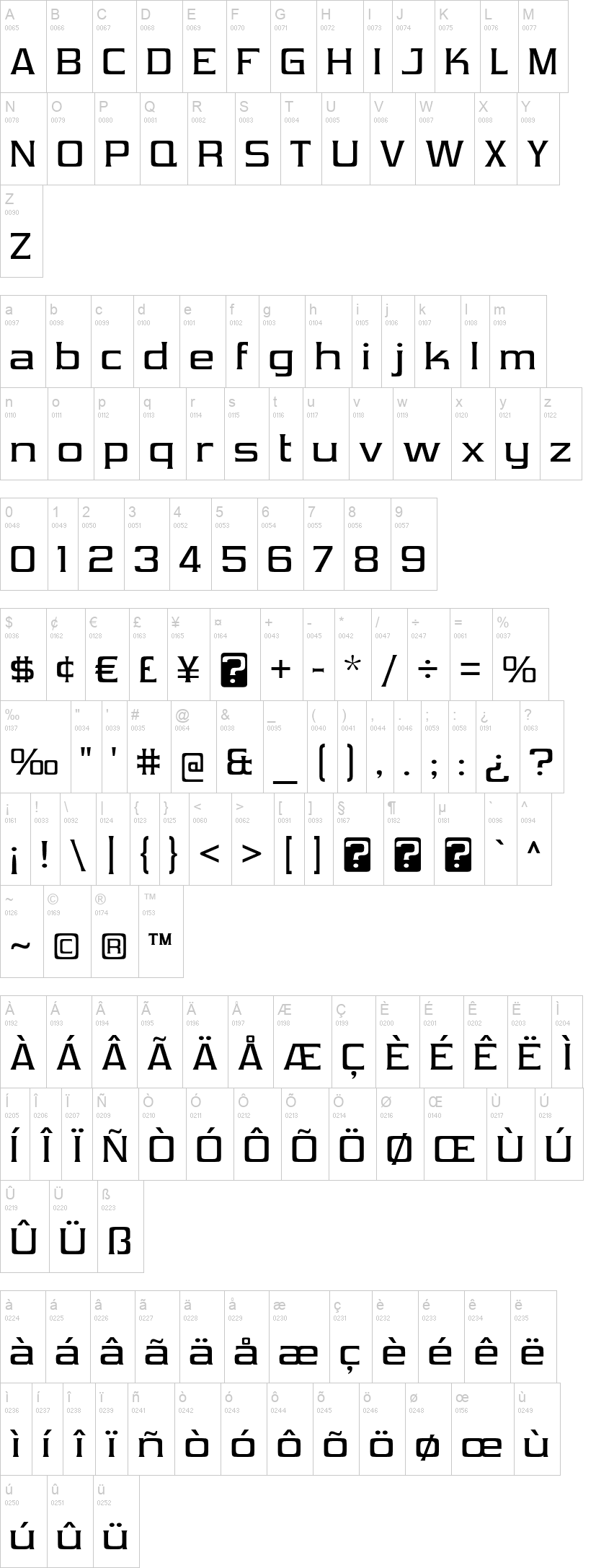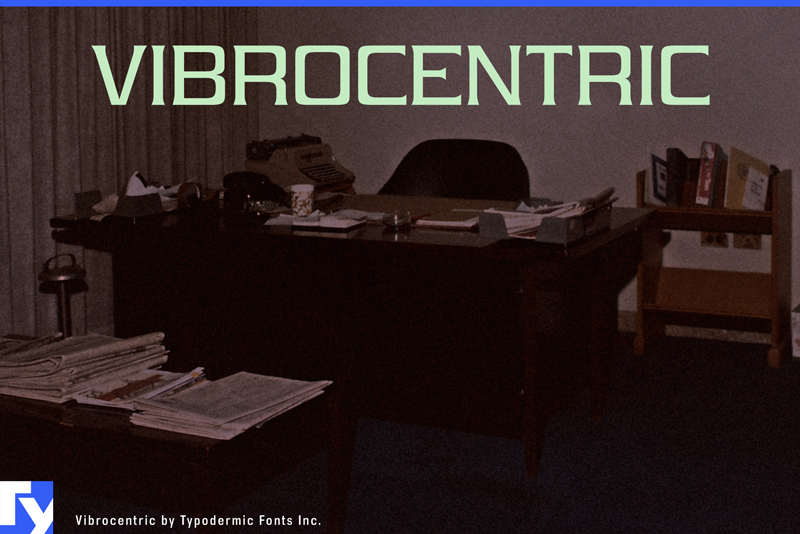
Vibrocentric Rg It.otfVibrocentric Bd.otfVibrocentric Bd It.otfNote of the authorVibrocentric is a squarish flared serif display typeface. Allow this 1960s classic coolness to infuse your message with a distinct industrial elegance. Vibrocentric comes in Regular, Italic, Bold, and Bold-Italic variants. Most Latin-based European writing systems are supported, including the following languages. Afaan Oromo, Afar, Afrikaans, Albanian, Alsatian, Aromanian, Aymara, Bashkir (Latin), Basque, Belarusian (Latin), Bemba, Bikol, Bosnian, Breton, Cape Verdean, Creole, Catalan, Cebuano, Chamorro, Chavacano, Chichewa, Crimean Tatar (Latin), Croatian, Czech, Danish, Dawan, Dholuo, Dutch, English, Estonian, Faroese, Fijian, Filipino, Finnish, French, Frisian, Friulian, Gagauz (Latin), Galician, Ganda, Genoese, German, Greenlandic, Guadeloupean Creole, Haitian Creole, Hawaiian, Hiligaynon, Hungarian, Icelandic, Ilocano, Indonesian, Irish, Italian, Jamaican, Kaqchikel, Karakalpak (Latin), Kashubian, Kikongo, Kinyarwanda, Kirundi, Kurdish (Latin), Latvian, Lithuanian, Lombard, Low Saxon, Luxembourgish, Maasai, Makhuwa, Malay, Maltese, Māori, Moldovan, Montenegrin, Ndebele, Neapolitan, Norwegian, Novial, Occitan, Ossetian (Latin), Papiamento, Piedmontese, Polish, Portuguese, Quechua, Rarotongan, Romanian, Romansh, Sami, Sango, Saramaccan, Sardinian, Scottish Gaelic, Serbian (Latin), Shona, Sicilian, Silesian, Slovak, Slovenian, Somali, Sorbian, Sotho, Spanish, Swahili, Swazi, Swedish, Tagalog, Tahitian, Tetum, Tongan, Tshiluba, Tsonga, Tswana, Tumbuka, Turkish, Turkmen (Latin), Tuvaluan, Uzbek (Latin), Venetian, Vepsian, Võro, Walloon, Waray-Waray, Wayuu, Welsh, Wolof, Xhosa, Yapese, Zapotec Zulu and Zuni.